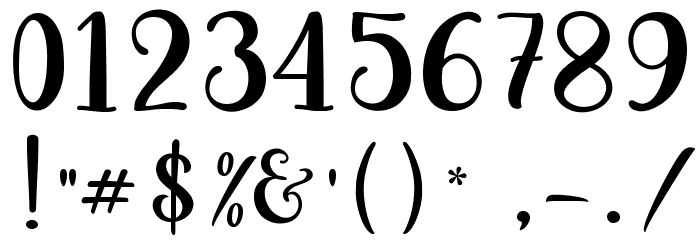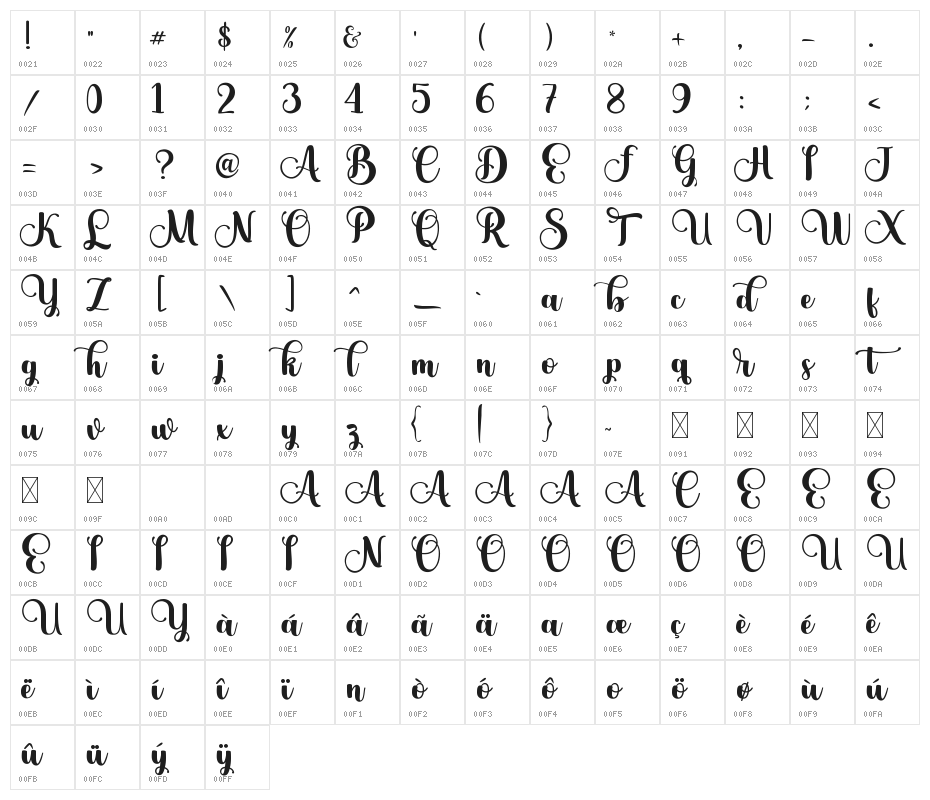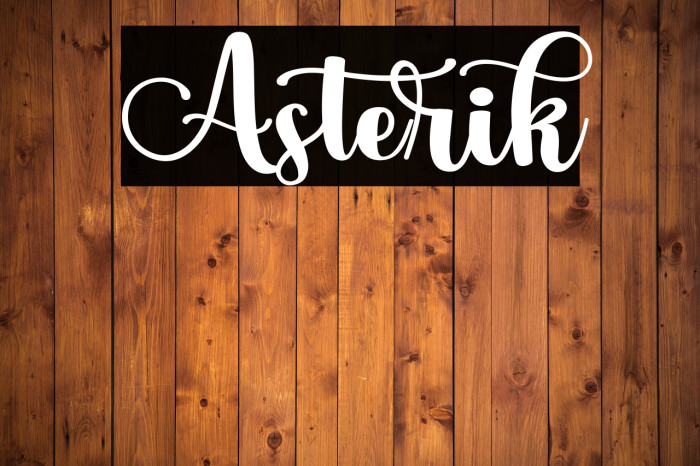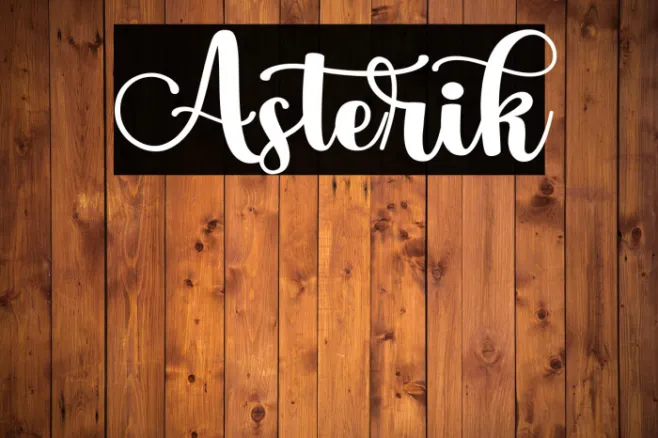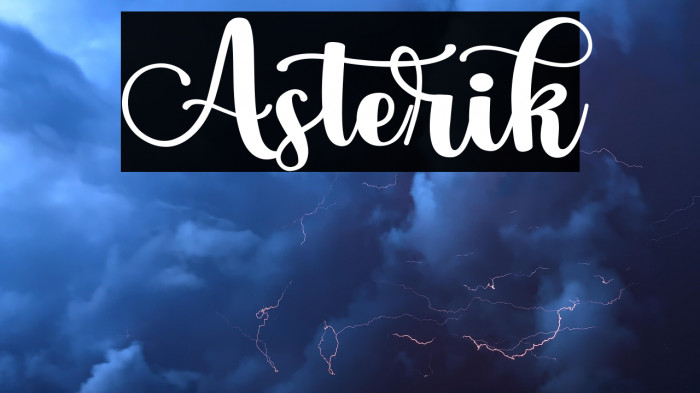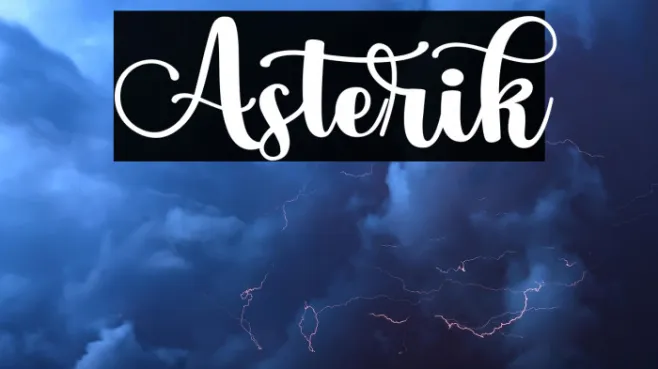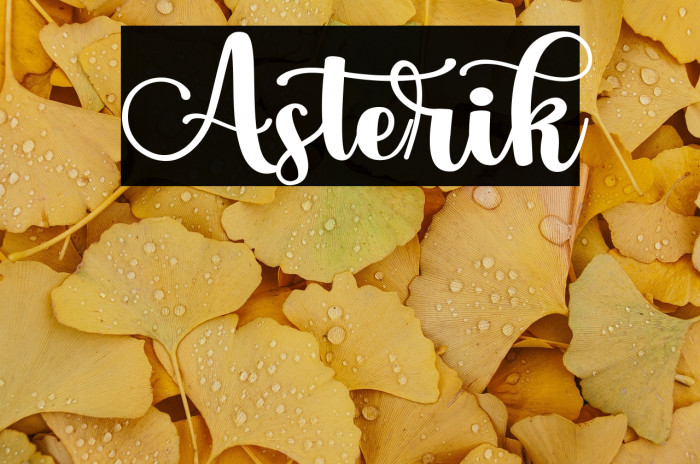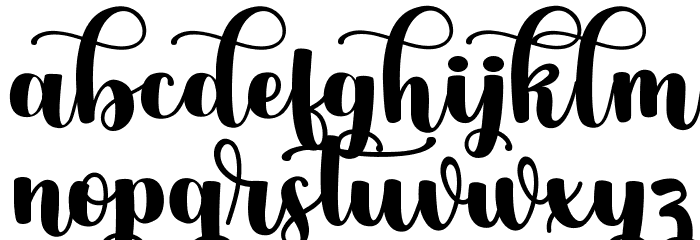
Asterik Font
Asterik Description
This font features a decorative and elegant script style with flowing, cursive elements. The uppercase letters are characterized by their sweeping, ornate loops and flourishes, giving them a sophisticated and artistic appearance. The lowercase letters maintain a consistent style, with smooth curves and a playful yet refined look. The numerals are bold and clear, complementing the overall aesthetic with a touch of modern flair. Special characters are designed with the same attention to detail, ensuring a cohesive and visually appealing set. The font's unique style makes it suitable for projects that require a touch of elegance and creativity.